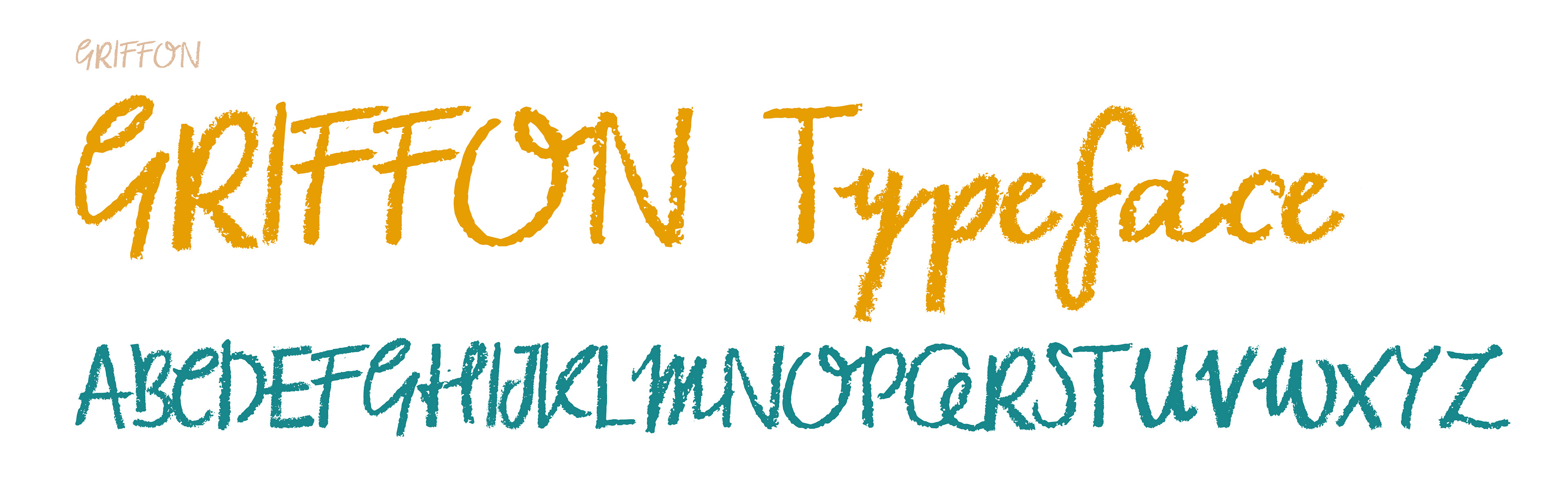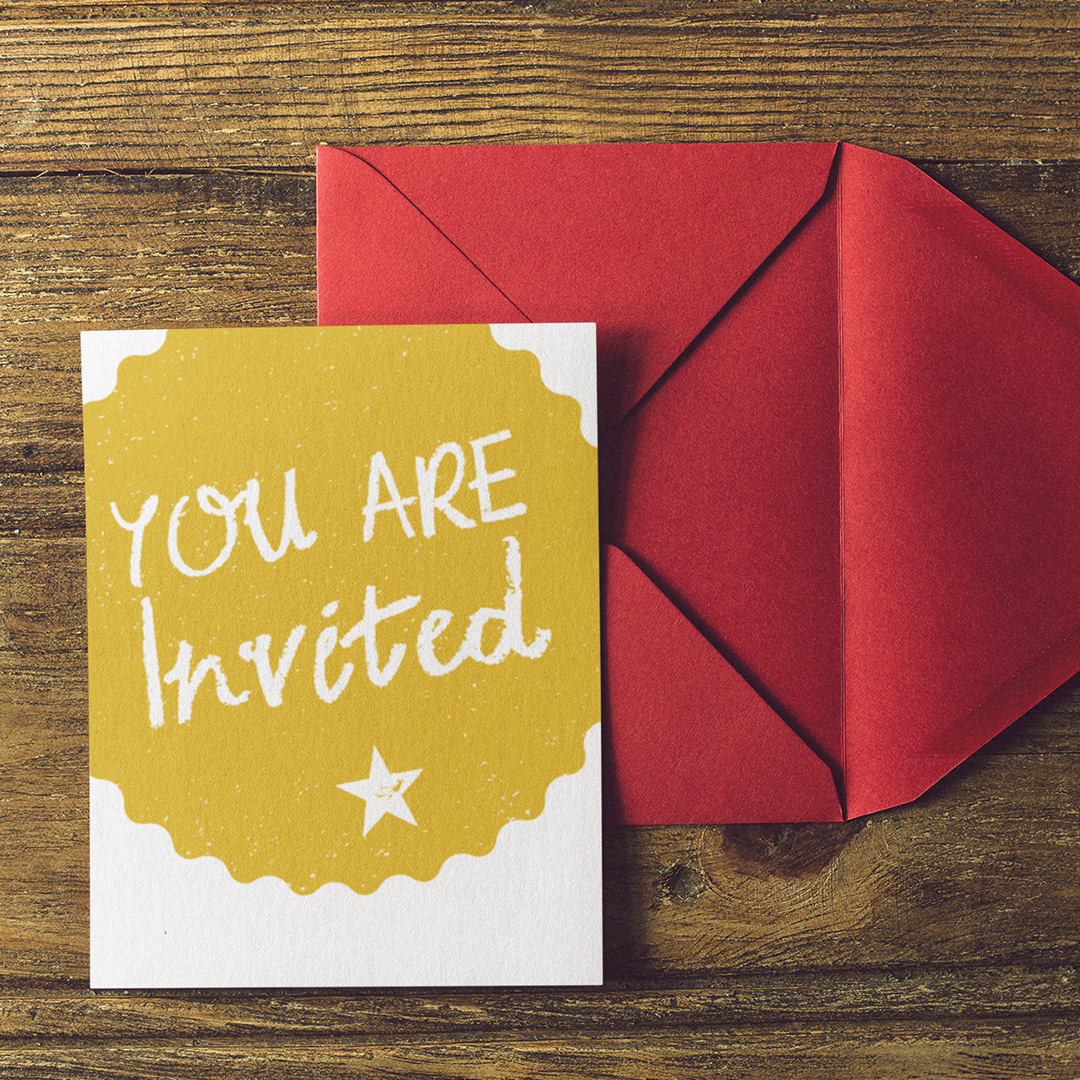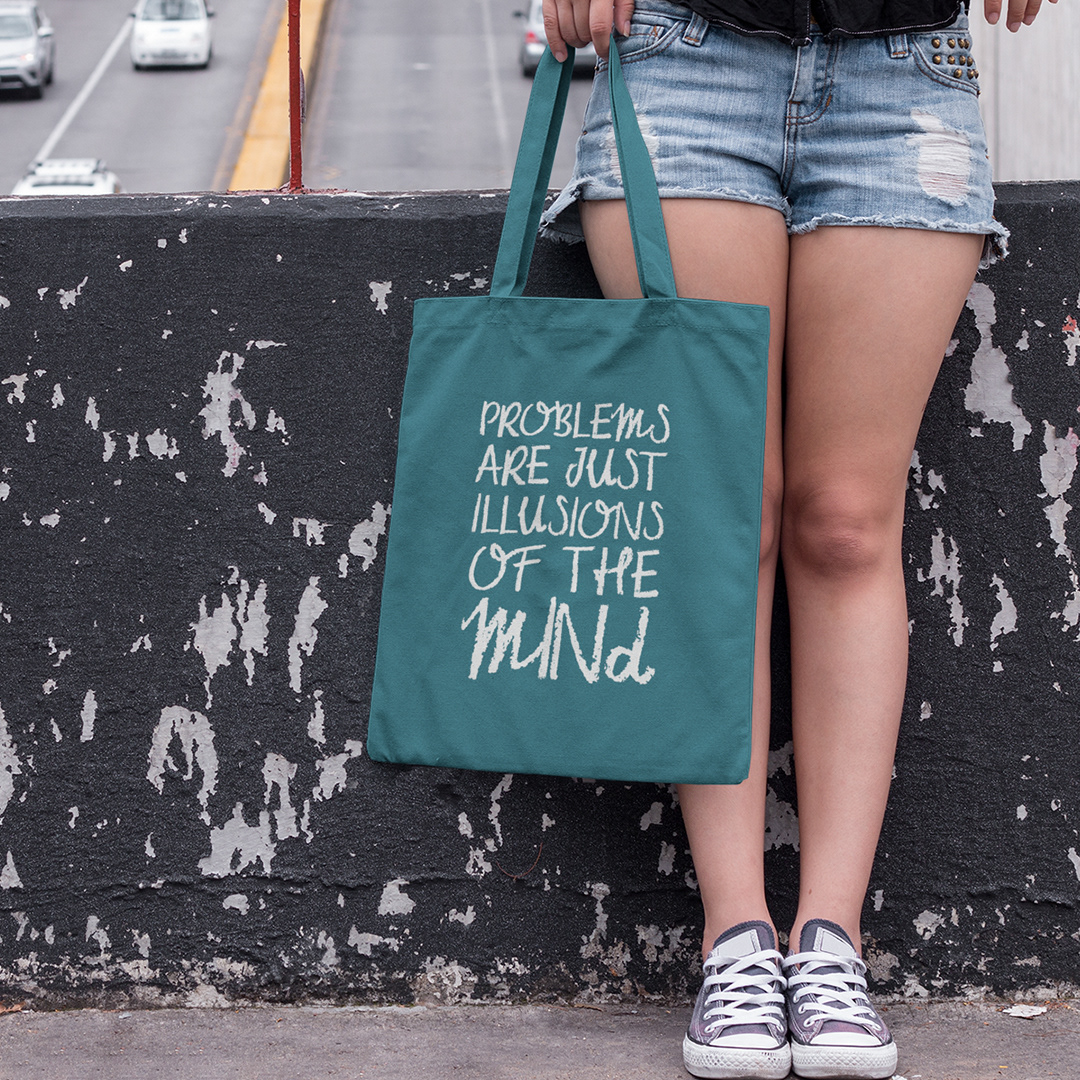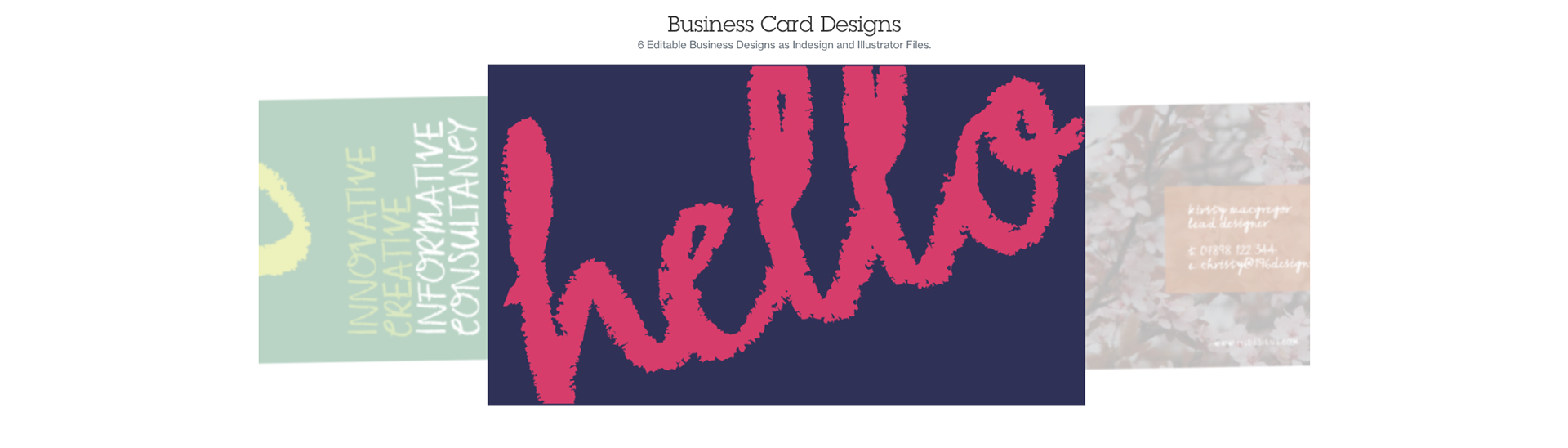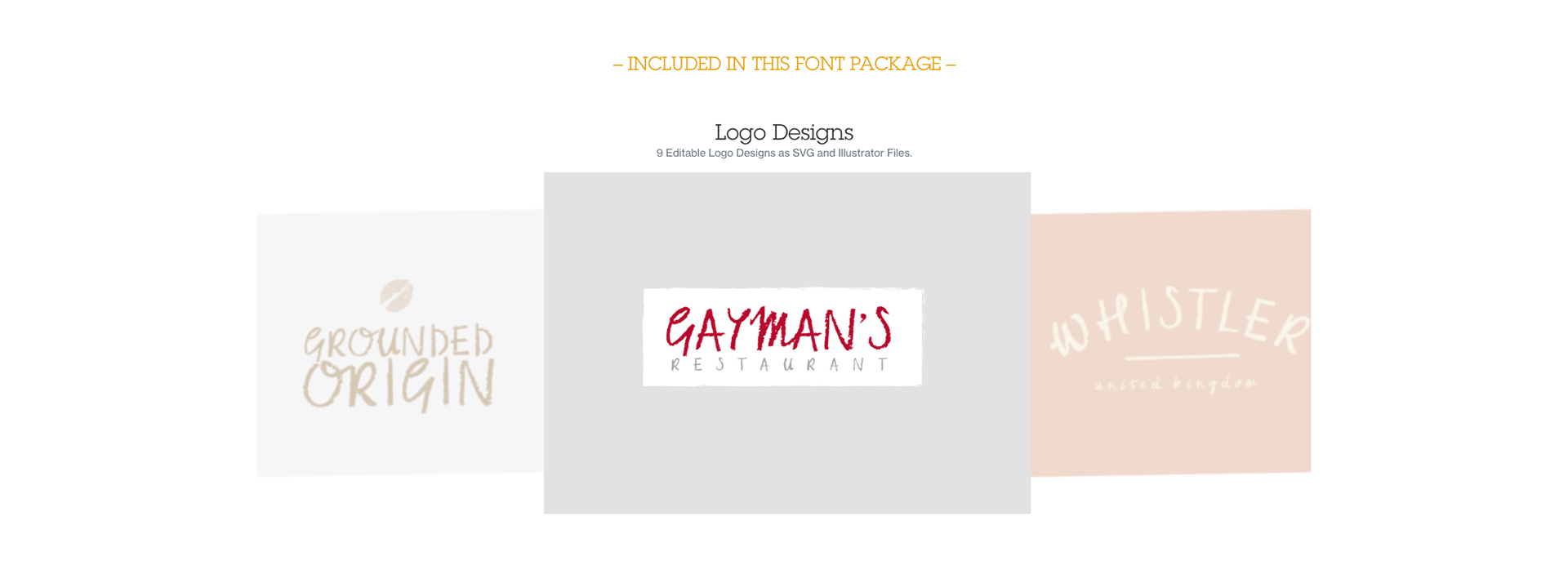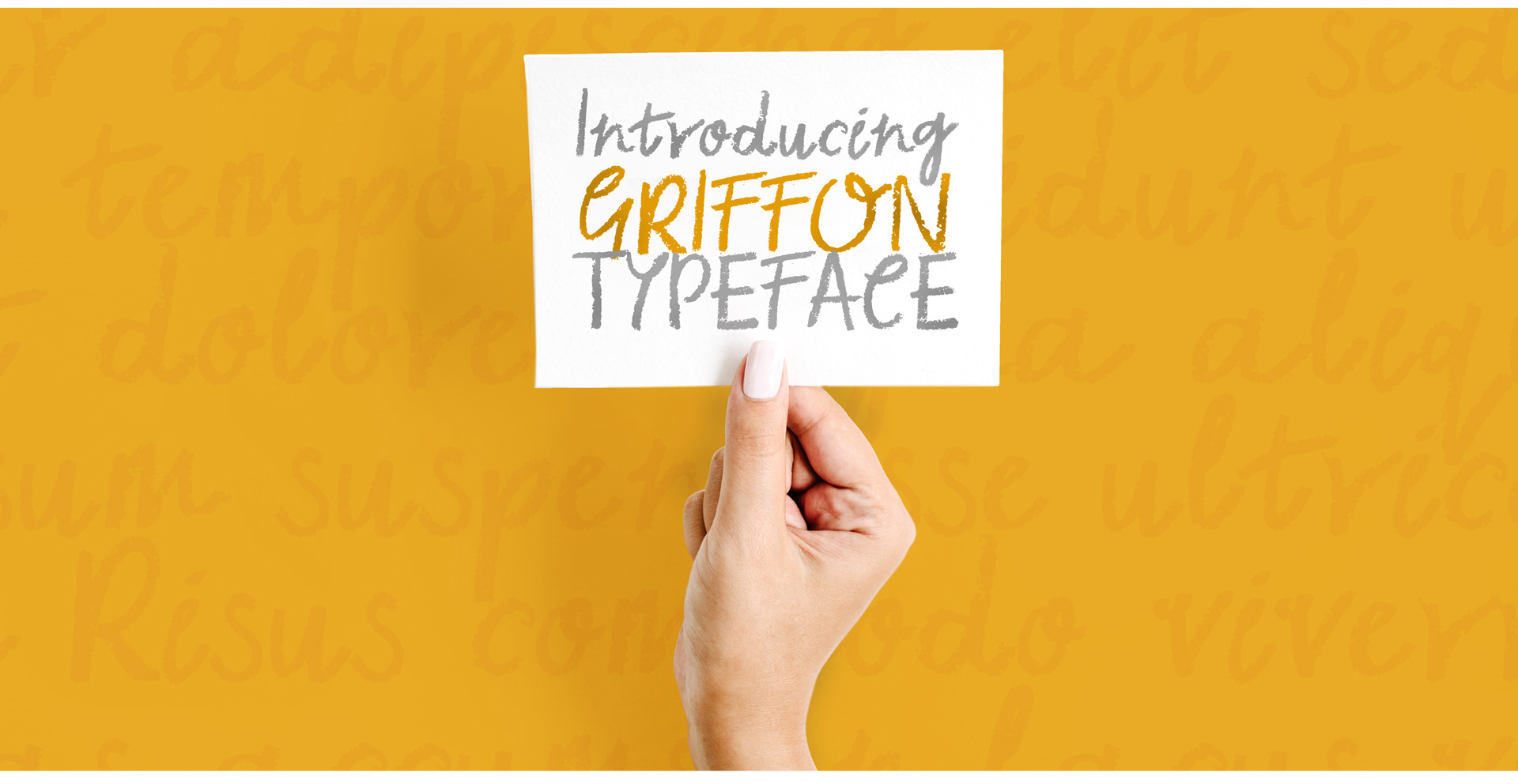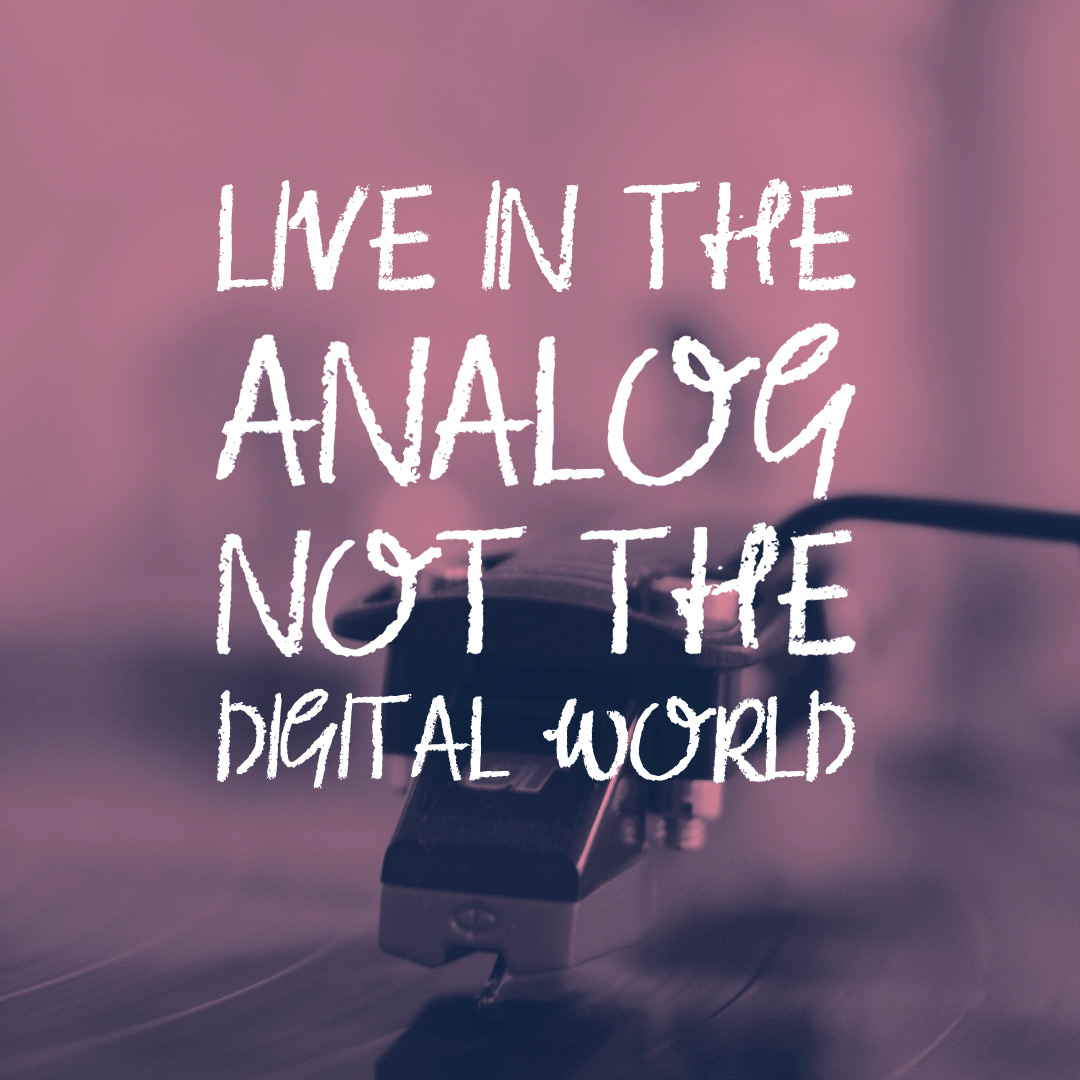
Griffon is an Handwritten font with a Chalk/Pencil/Crayon feel. Great for headings, it makes a statement with its rough handwritten scrawl style.
Great for use as headings, banners, labels and for a bold statement, it has been used in everything from Movies, Books, Packaging and Greetings Cards.